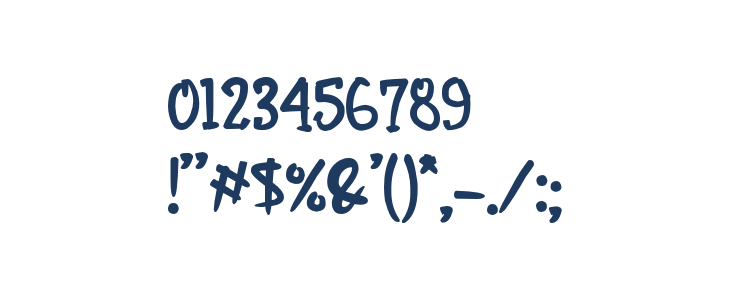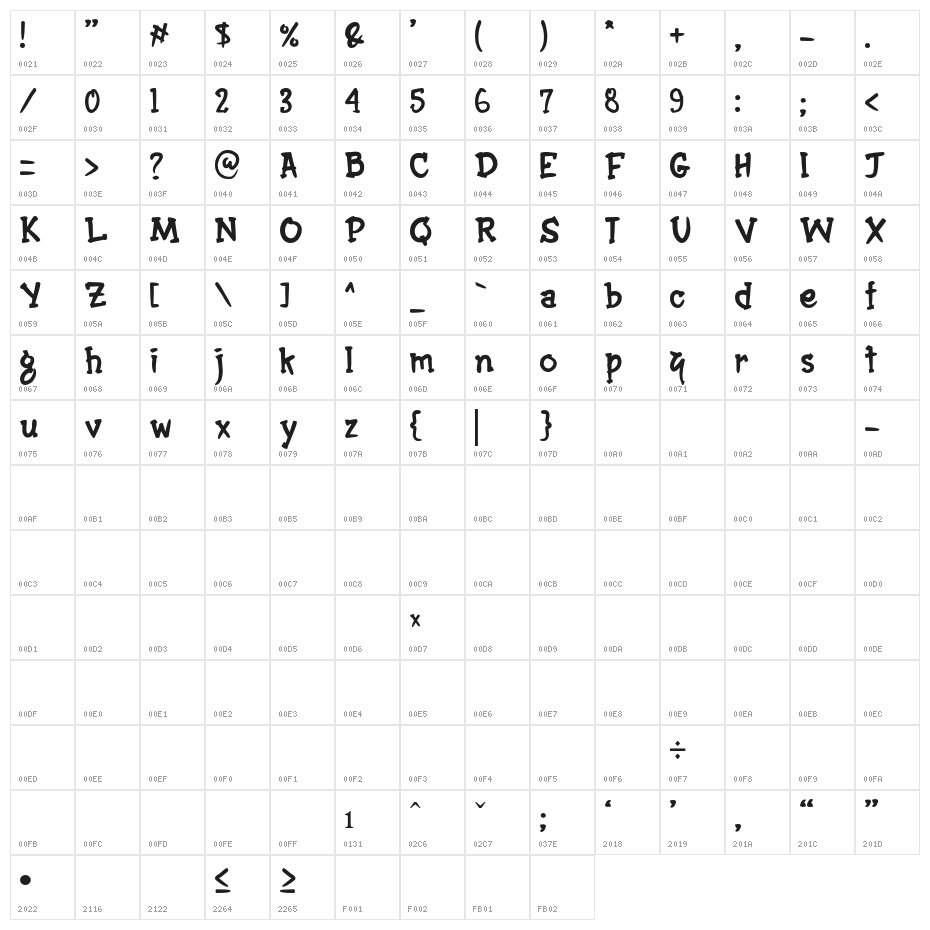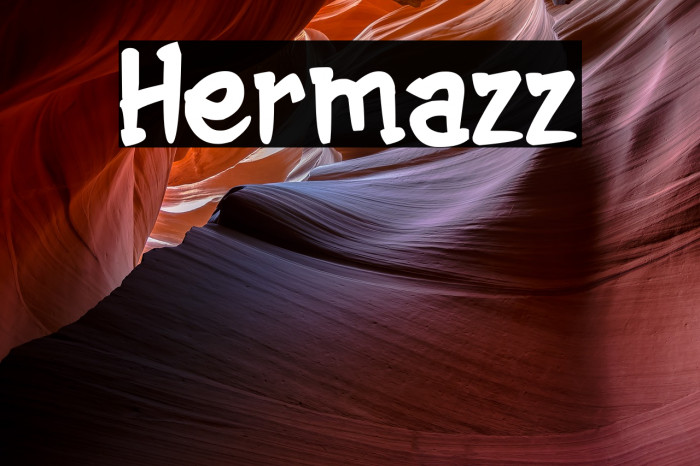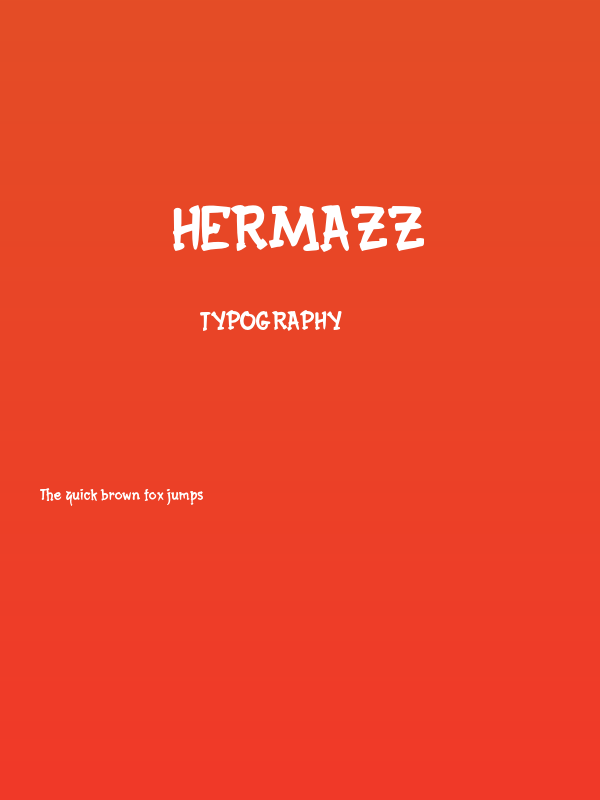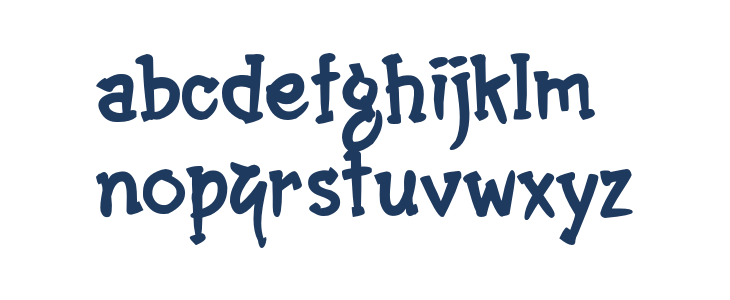
Hermazz Font
Hermazz Description
This font features a playful and bold style with a hand-drawn appearance. The characters are slightly irregular, giving it a whimsical and casual feel. The uppercase and lowercase letters maintain a consistent thickness, while the numbers and special characters follow the same playful design. The strokes are bold, and the overall look is informal and friendly, making it suitable for creative and fun projects. The font's unique character shapes add a touch of personality and charm, making it stand out in various design contexts.
| Proposed Projects | Ideal for children's books, playful branding, casual invitations, and creative posters. |